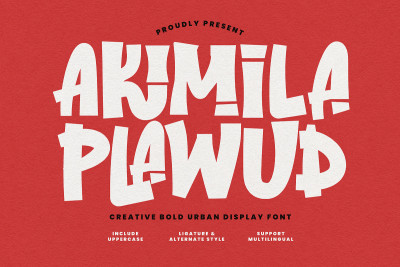
Akimila Plawud Bold Urban Display Font
Akimila Plawud Bold Urban Display stands out as a reliable typeface choice for designers seeking clarity without sacrificing character.